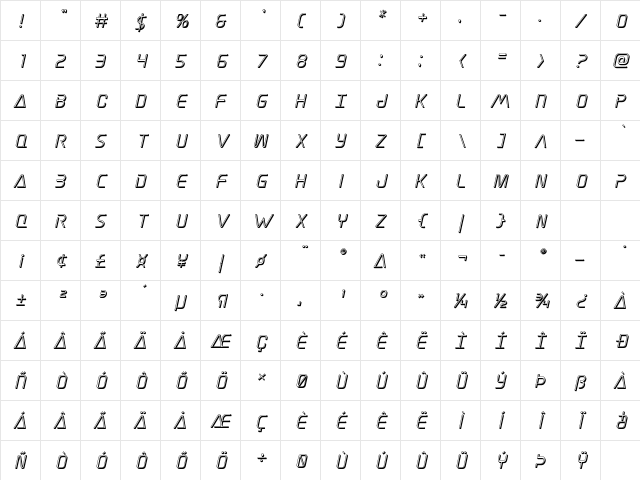
Elite Danger 3D Italic is a composed and adaptable typeface that performs quietly and consistently across a wide range of design contexts. The slanted form adds forward momentum and visual energy.